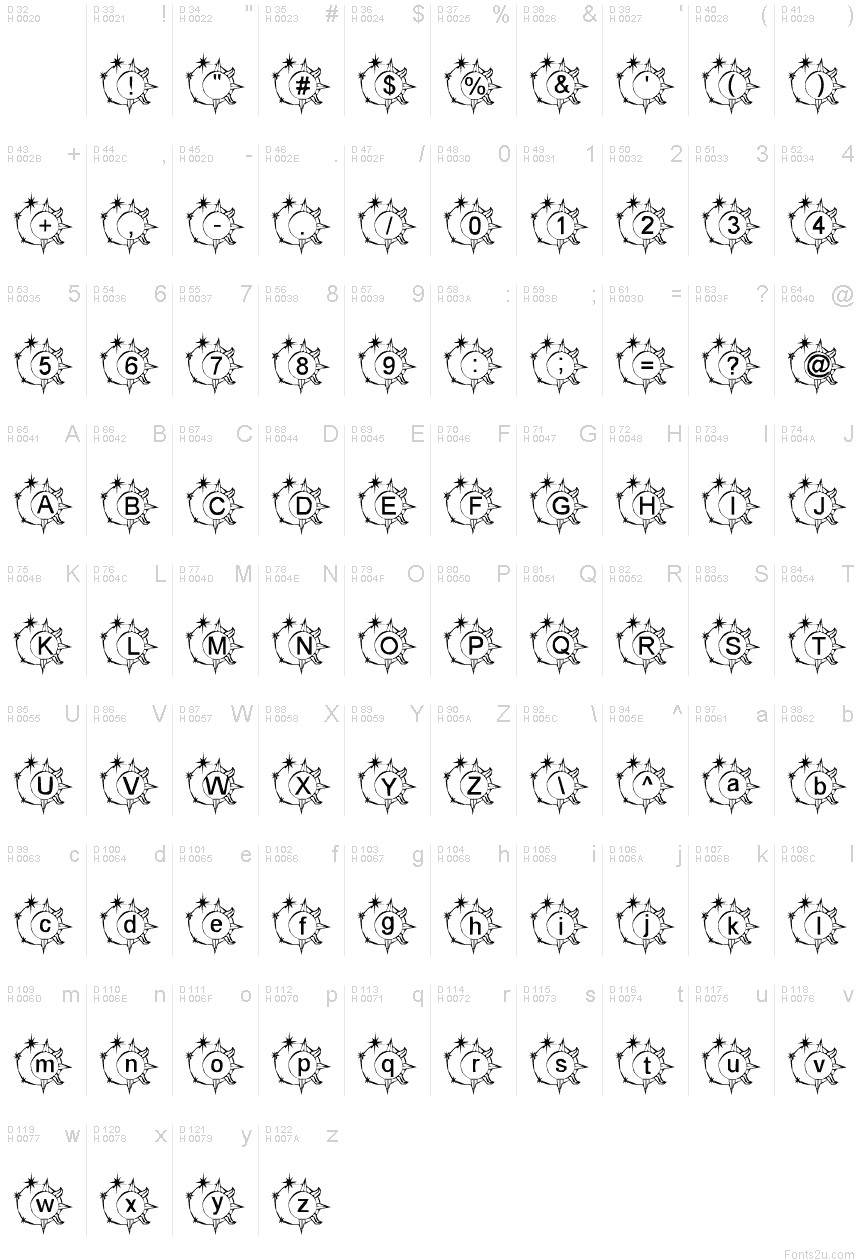
LMS Sunshine/Moonshine
LMS Sunshine/Moonshine by London Stokes is a celestial decorative display font with each letter set inside a ring and edged by pointed rays and small starbursts. The repeated circle-and-sun motif gives the alphabet a badge-like rhythm, and the crescent touches keep the theme tied to both sunshine and moonshine.
It suits logos, poster titles, invitation details, album art, stickers, packaging, and event graphics where a compact emblem is more useful than plain lettering. The ornamental structure makes it a good fit for labels, badges, and decorative headers that need a themed accent without extra clutter.